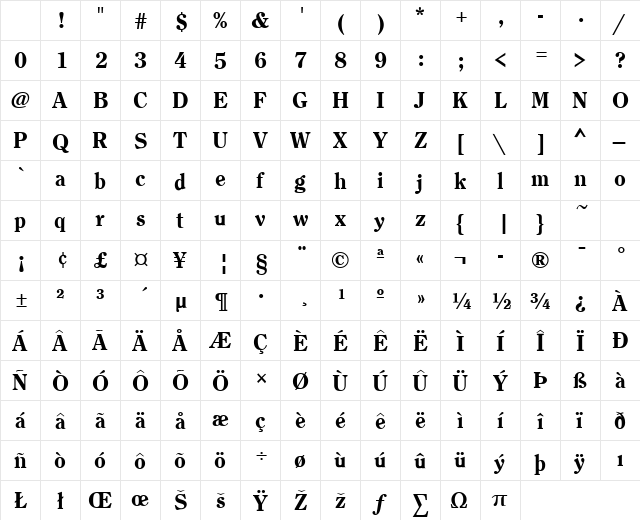
ClearfaceH is a composed and adaptable typeface that performs quietly and consistently across a wide range of design contexts. Its bold stroke weight gives it real presence on the page.